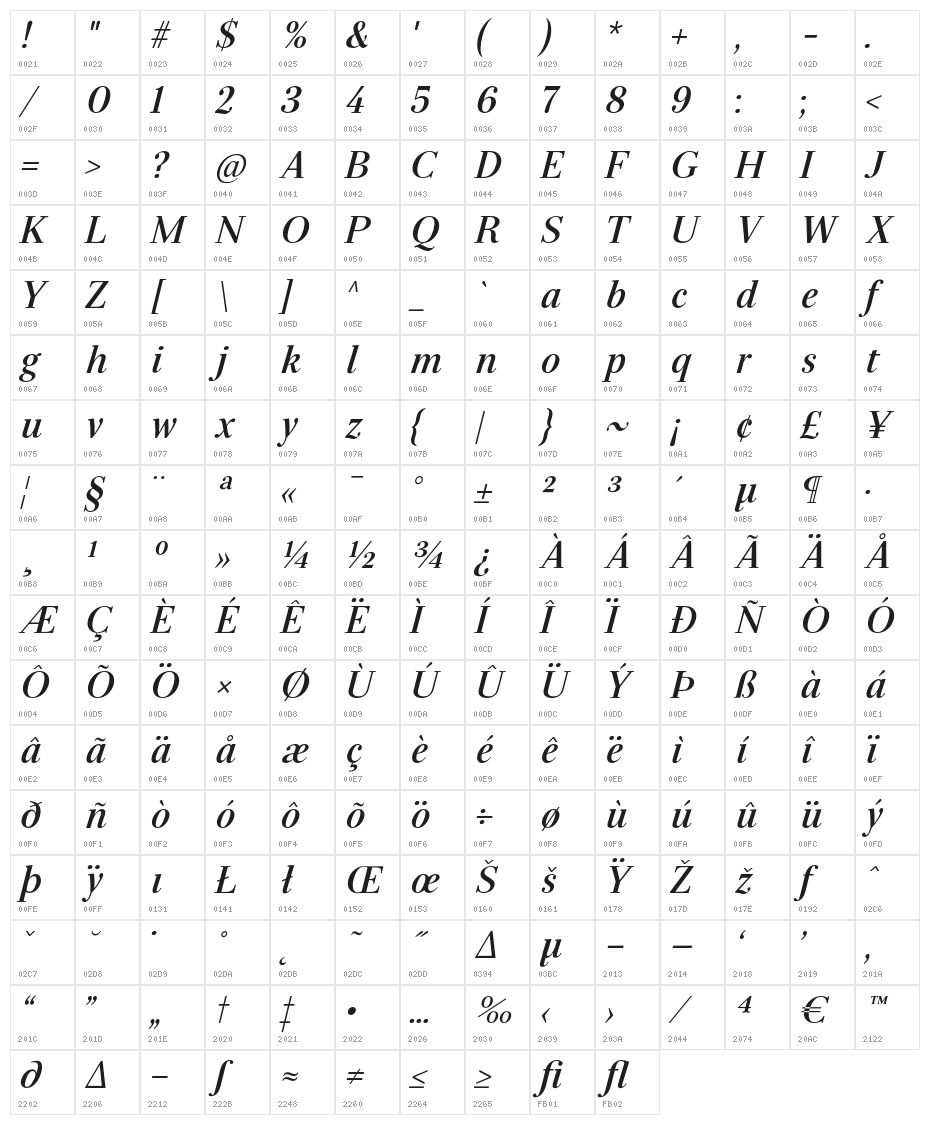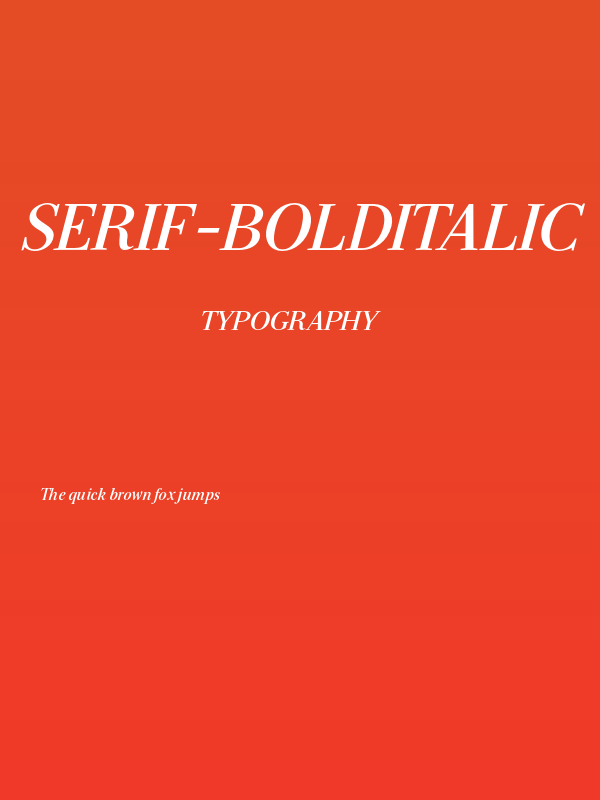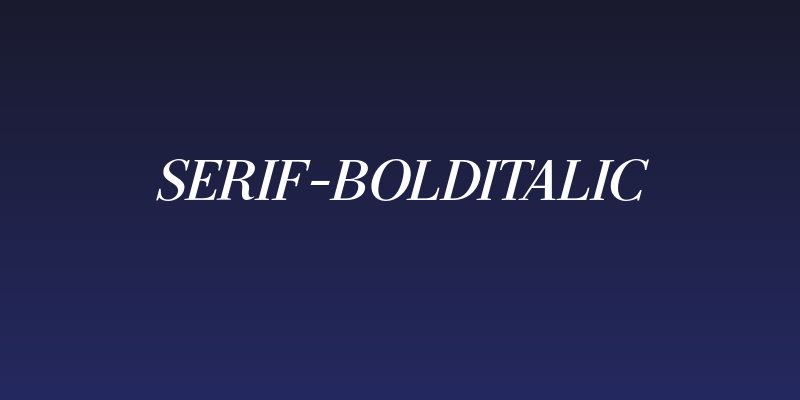
Serif-BoldItalic Font
Serif-BoldItalic Description
This font exudes a classic elegance with its bold and italicized serif style. The letters are characterized by their strong, pronounced serifs and a slight slant, giving them a dynamic yet sophisticated appearance. The uppercase letters stand tall and commanding, while the lowercase letters maintain a consistent flow with smooth curves and balanced proportions. The numerals are clear and distinct, ensuring readability. Special characters are well-integrated, maintaining the font's cohesive aesthetic. This font is ideal for creating a sense of tradition and authority, making it suitable for formal documents, book titles, and branding that requires a touch of refinement.
| Use Case | Headlines, Logos, Editorial design |
| Proposed Projects | Ideal for book covers, formal invitations, branding, and editorial design. |